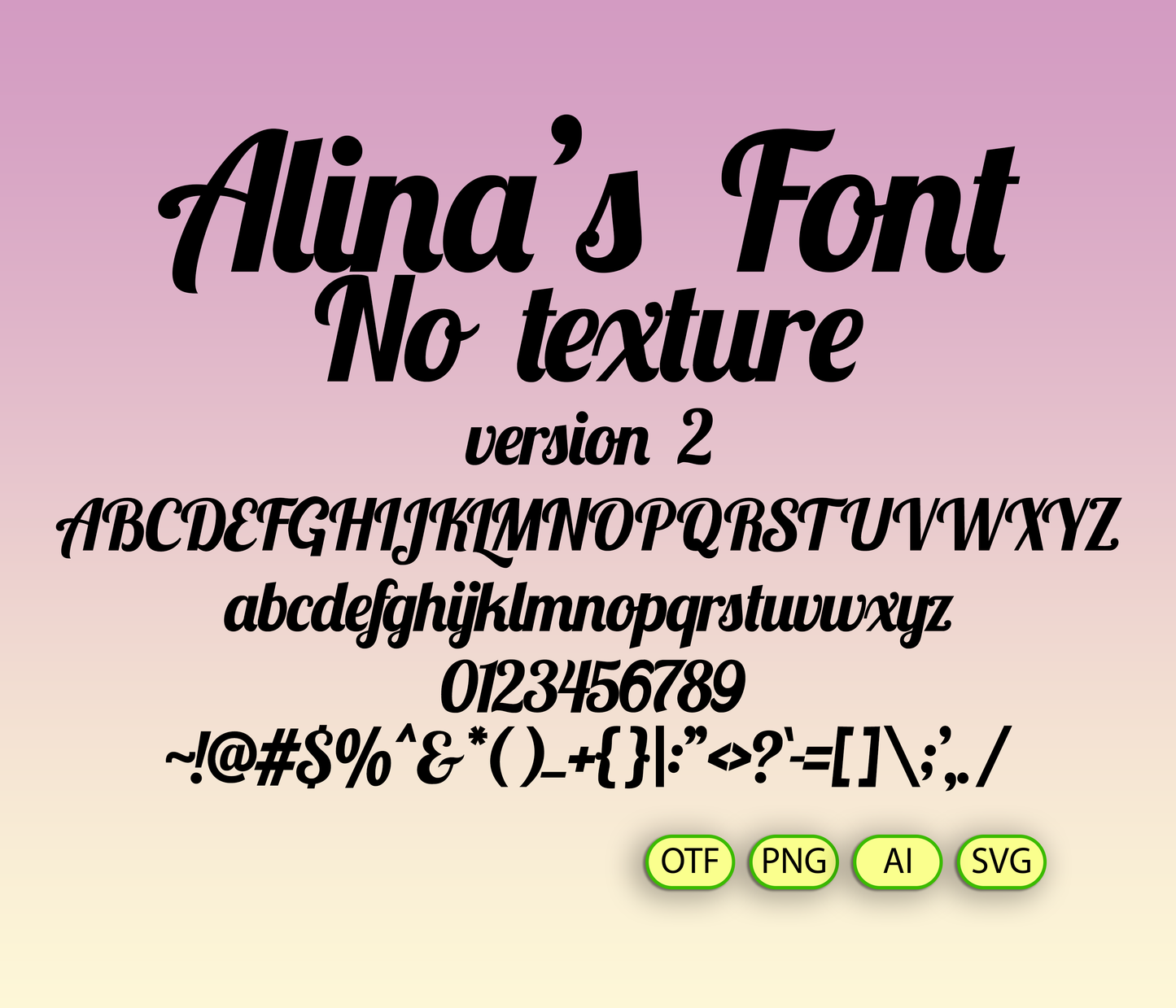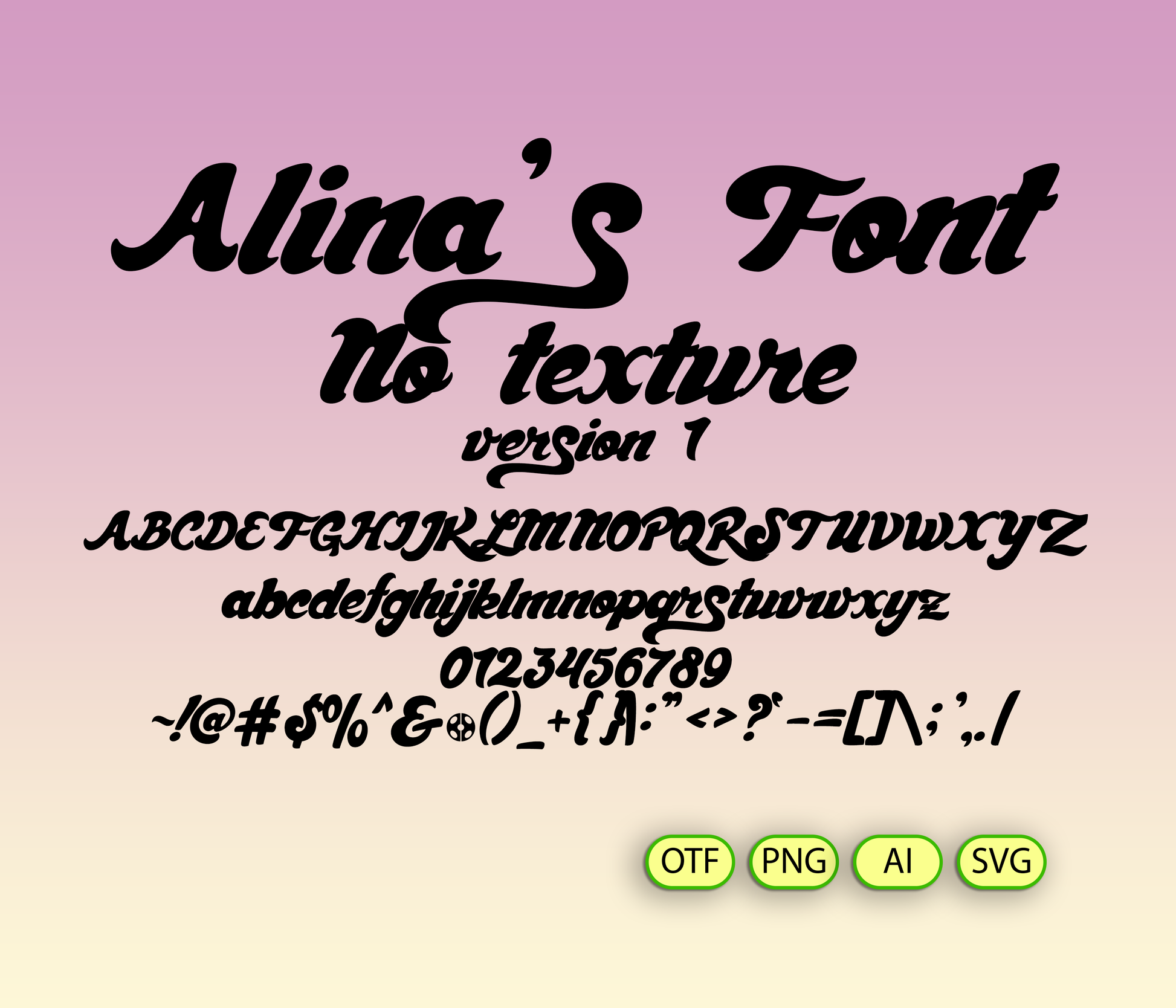
Spotted Feline Font Bundle
Spotted Feline Duo Typography Set
Transform your designs with the power of our Spotted Feline Duo Typography Set, inspired by the beloved animated series featuring two iconic Parisian superheroes. This font captures the essence of magical transformations and heroic adventures, perfect for fans, designers, and creatives looking to add a touch of enchanted charm to their projects.
Our Spotted Feline Duo Typography features dynamic, energetic characters with a hint of magical flair, reflecting the blend of superhero action and youthful charm. Ideal for:
- Animated series fan art and cosplay accessories
- Superhero-themed party invitations and decorations
- Children's book covers and illustrations
- Website headers and digital graphics for kid-friendly content
- T-shirt and merchandise design for animation enthusiasts
- Social media content for superhero cartoon communities
- Posters and banners for French-inspired magical events
- Gaming assets for projects with a teenage superhero theme
This versatility allows for easy incorporation into designs for users of all skill levels.
Spotted Feline Duo Font Generator
Our font pays homage to the enchanting world of secret identities and magical powers, empowering your designs with its vibrant and engaging spirit. Whether you're crafting fan art, designing themed events, or adding a touch of superhero magic to personal projects, this font communicates the essence of extraordinary adventures with a modern, Parisian twist.
Ready to unleash some superhero charm in your creations? This typography set is your magical Lucky Charm to designs that blend action, mystery, and a dash of teenage superhero fun.
Ladybug And Cat Noir Font